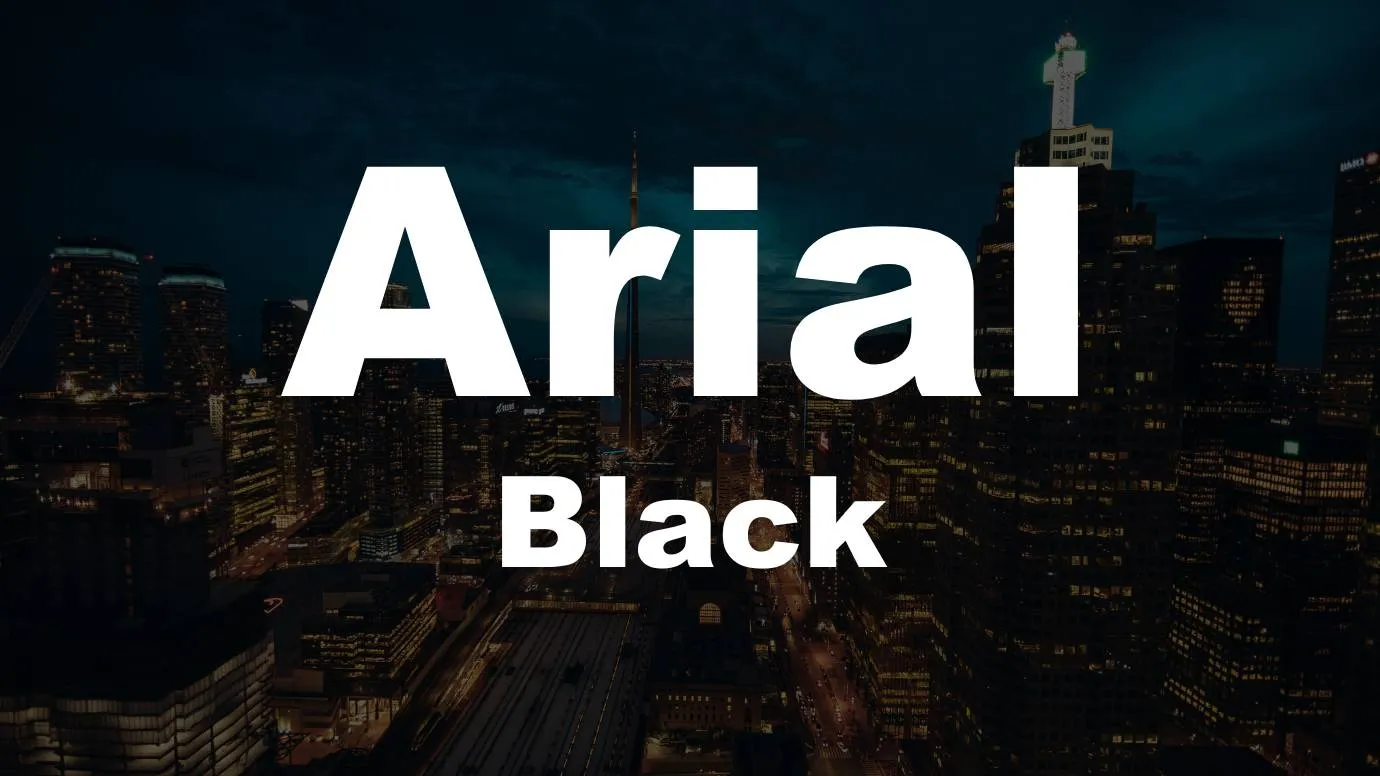
Arial Black Font is a sleek member of the sans-serif. Dreamed up by font wizards Robin Nicholas and Patricia Saunders, this stylish letter set made its big debut in 1982, courtesy of the Monotype Foundry.
This is a humanist design of the Arial font family and it was specially designed for giving a more black look to designs. It has also a rounded version of this typeface that is known as Arial Rounded Font and is very known among designers.